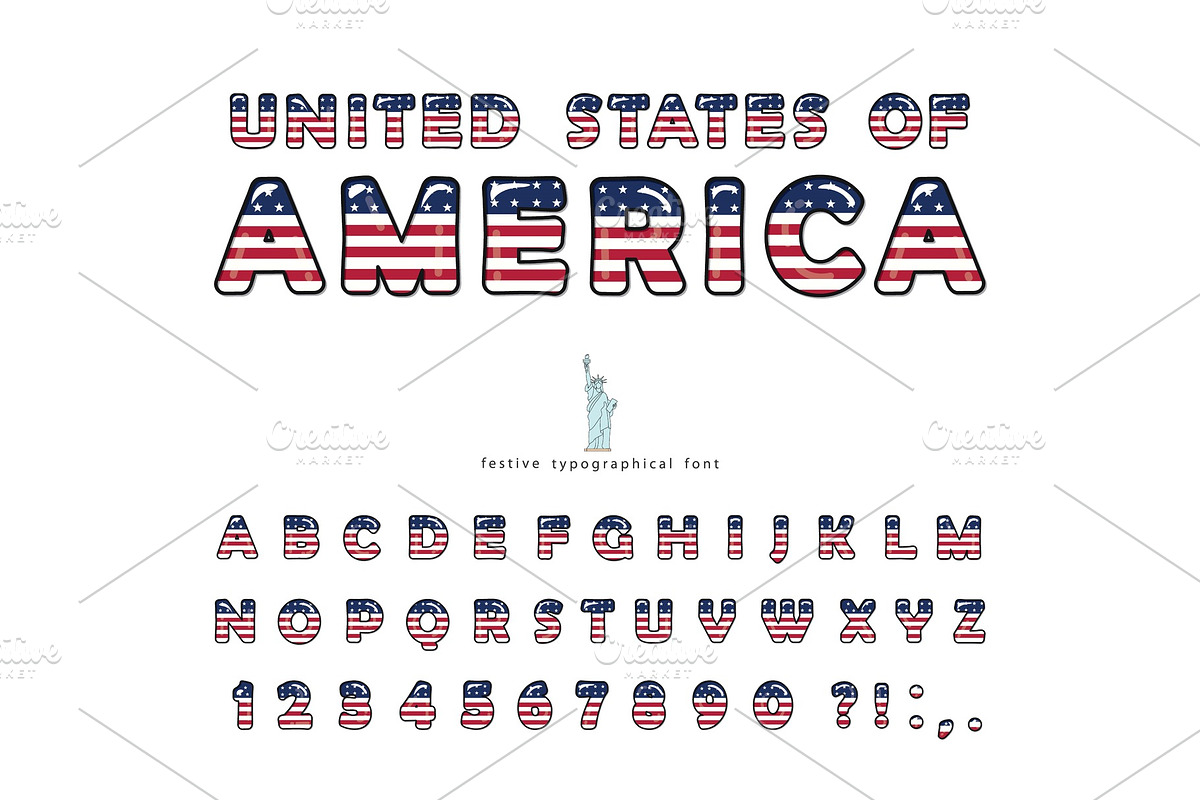
USA flag cartoon font
USA cartoon font. United States of America national flag colors. Creative glossy letters and numbers.
USA flag cartoon font by cutelittlethings fits naturally into Branding, posters, packaging, typography.